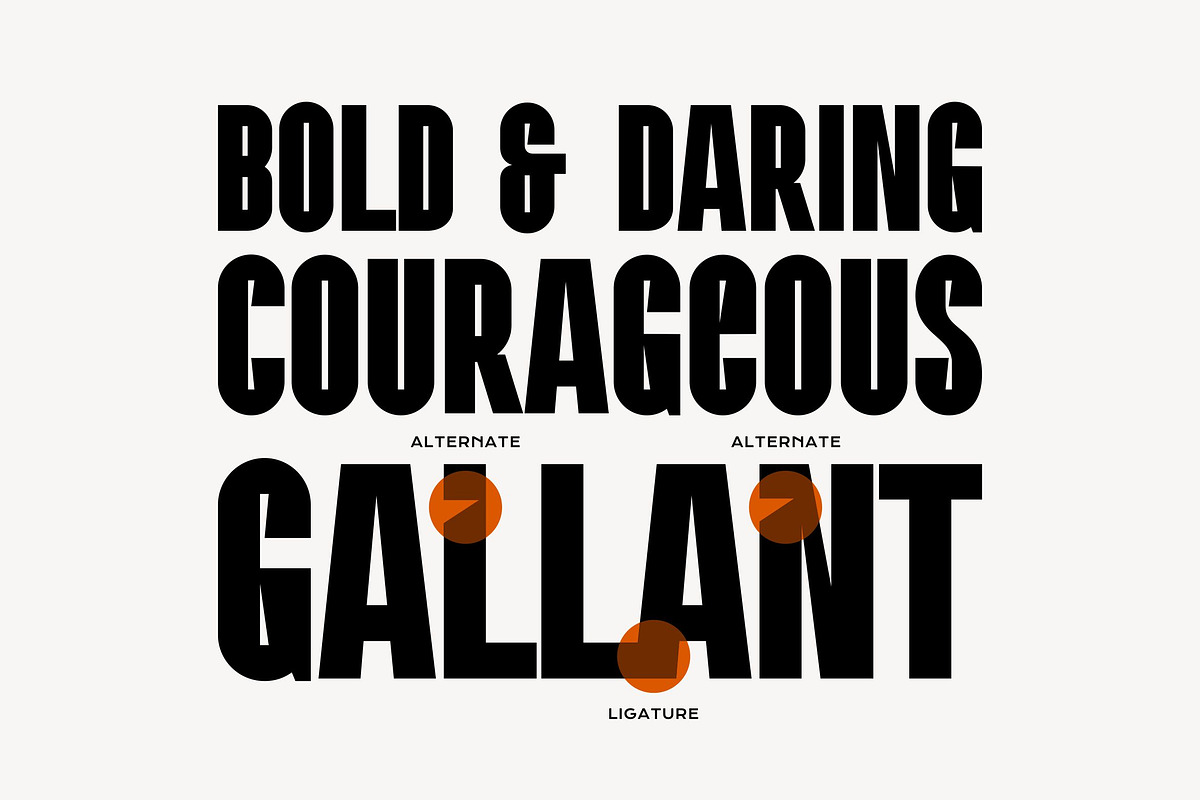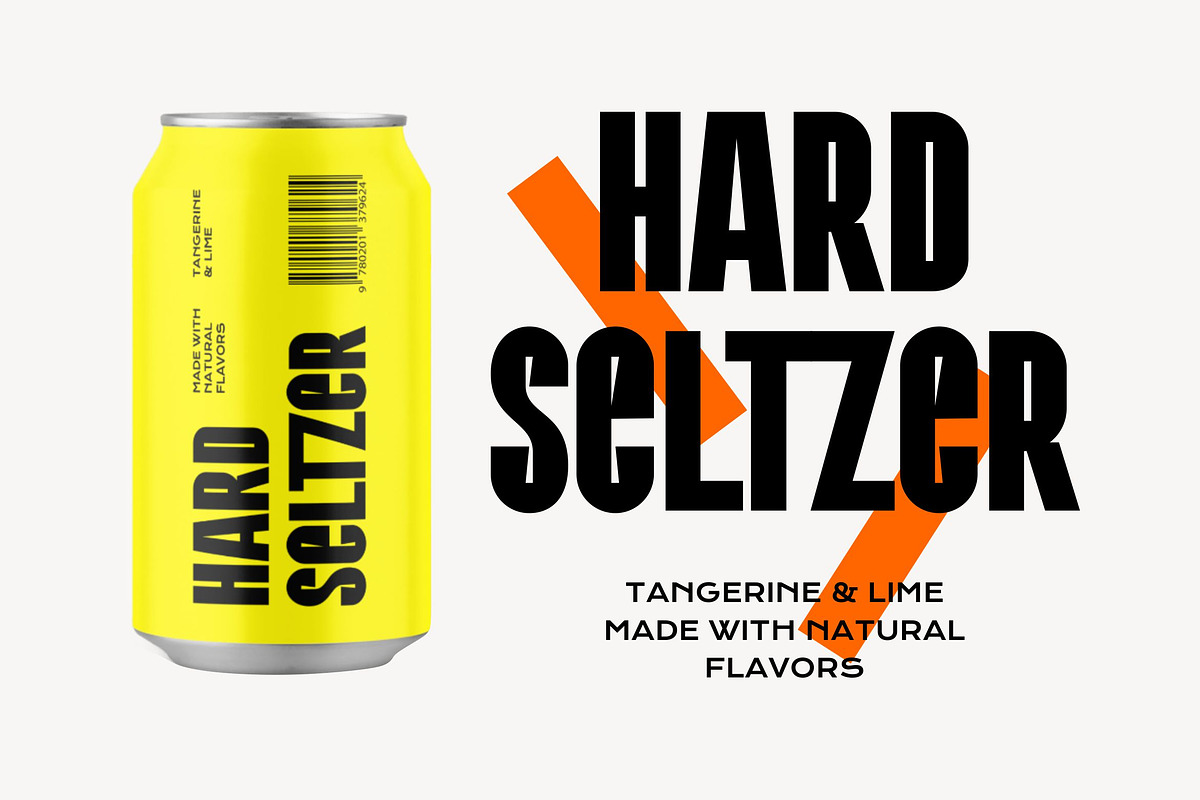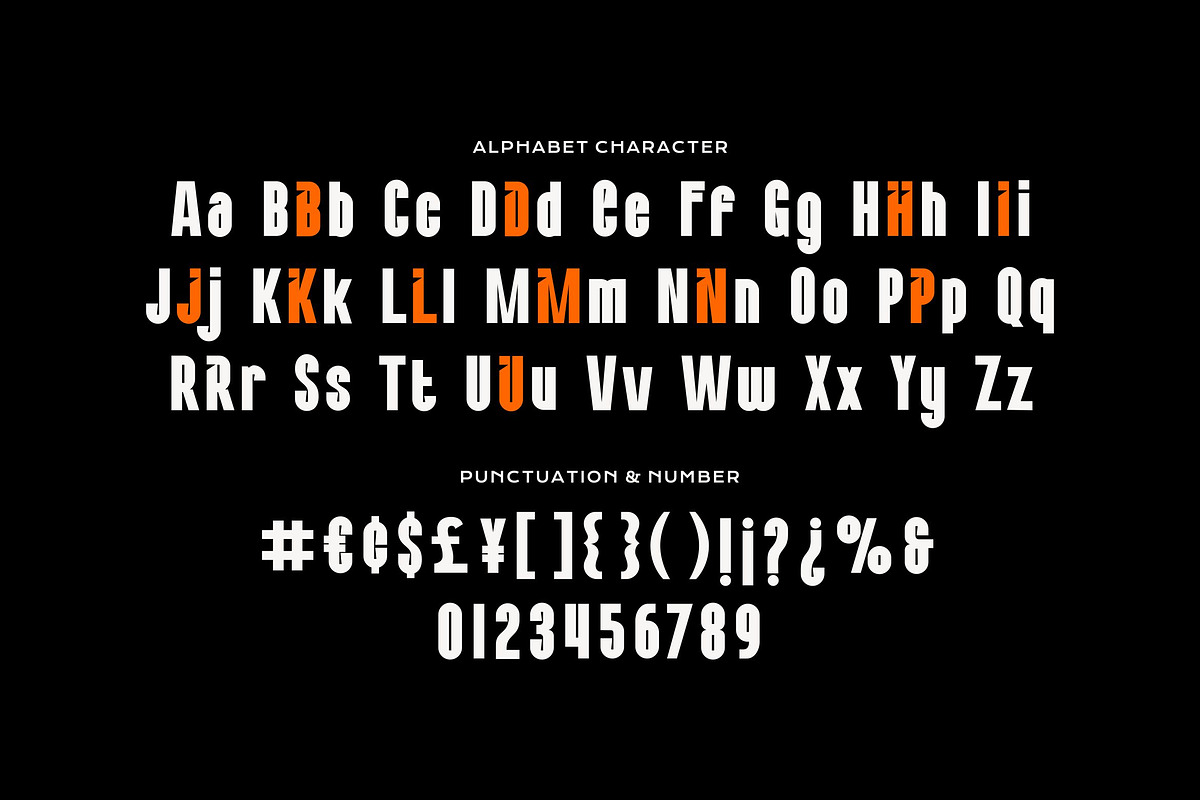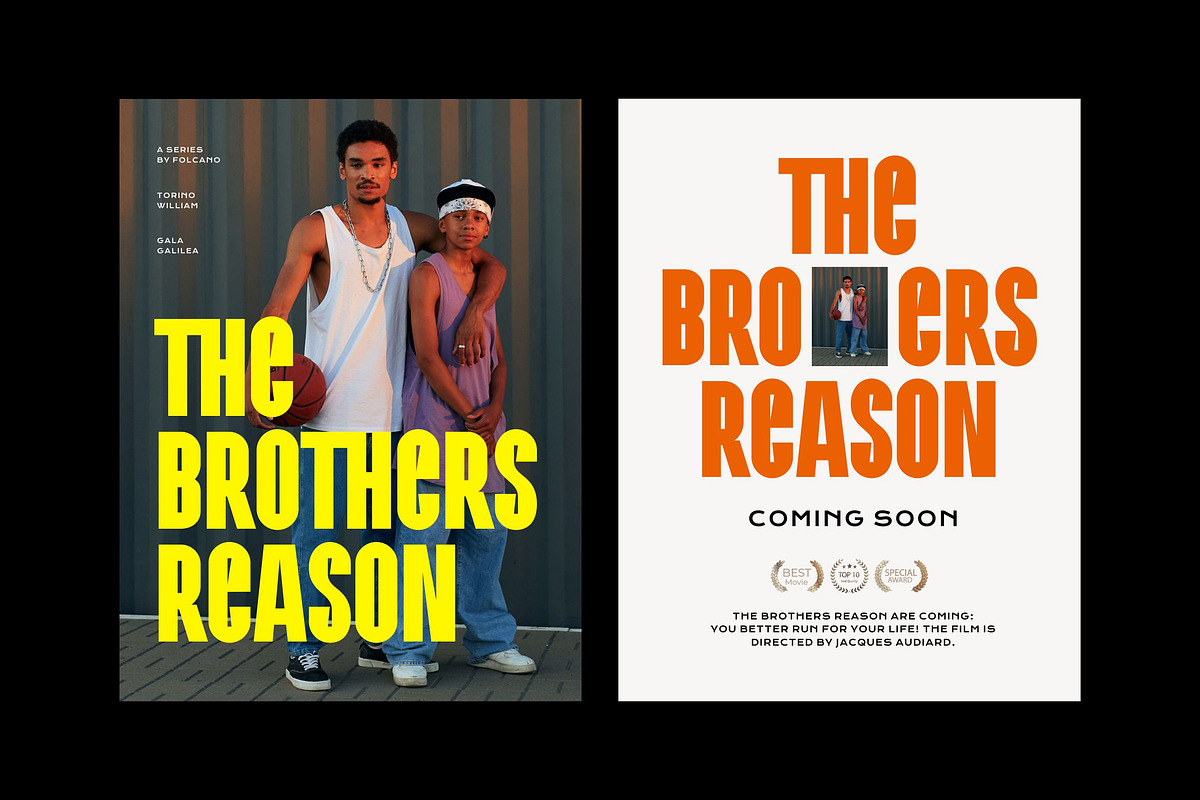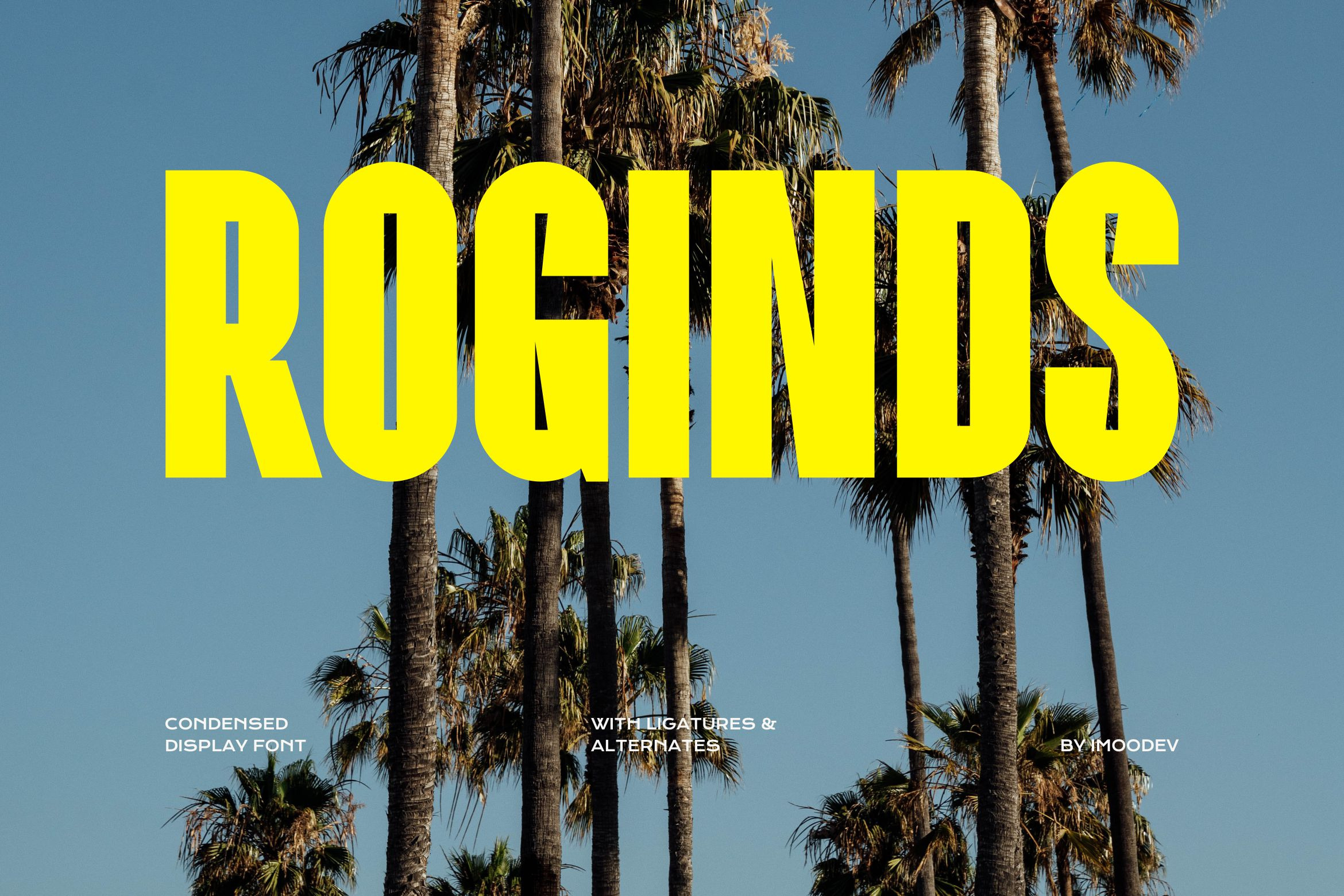
Roginds - Bold Condensed Typeface
Introducing Roginds, a powerful and bold condensed typeface designed to make a big impact. Roginds is the perfect choice for projects that demand attention and a touch of contemporary sophistication.
Its tall, narrow letterforms create a strong vertical rhythm, making it ideal for headlines, titles, and contemporary branding, and high impact poster designs.
Whether you're working on branding, editorial design, social media graphics, beverage packaging and product labels to cinematic movie titles and editorial layouts.
- Uppercase and Lowecase Characters.
- Numerals and Punctuations.
- Alternates and Ligatures.
- Multilingual Support.